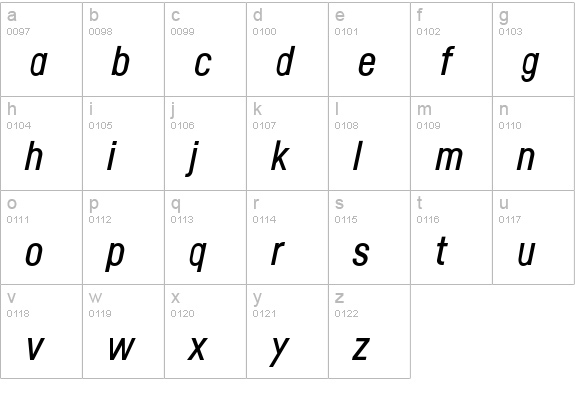
Fabrikat Medium Italic Font Details
Fabrikat Medium Italic is a balanced, medium-weight, italic variant in the Fabrikat typeface family \xE2\x80\x94 well suited to sub-headlines, navigation, and balanced editorial work.
Fabrikat Medium Italic font exudes elegance and sophistication with its sleek and modern design. The italic style adds a touch of flair and creativity to any text, making it perfect for projects that require a refined and polished look. The smooth curves and distinctive letterforms of Fabrikat Medium Italic font create a sense of movement and flow, adding a dynamic element to your designs. And the best part? Fabrikat Medium Italic font is available for free download at FontsMarket.com. This means you can easily enhance your projects with this stylish font without any cost. Whether you're working on branding, editorial design, or any other creative endeavor, Fabrikat Medium Italic font is sure to elevate your work to new heights. Download it today and experience the beauty and versatility of this stunning typeface.